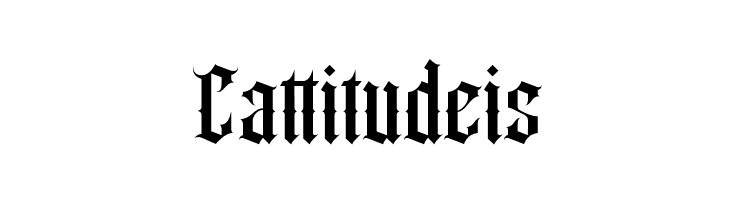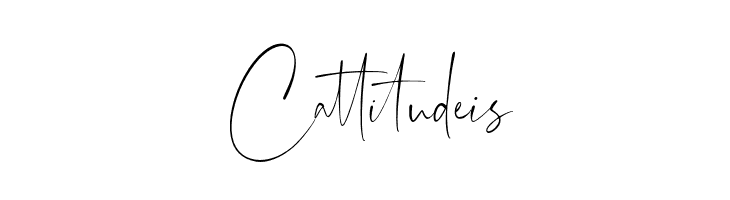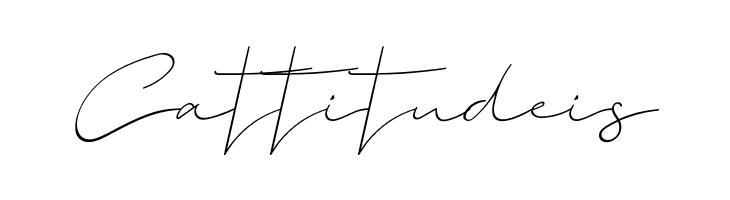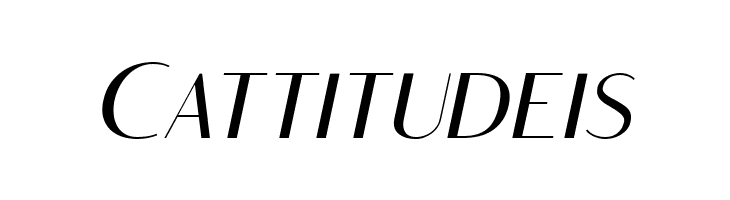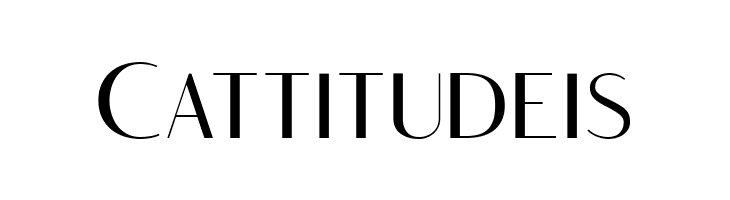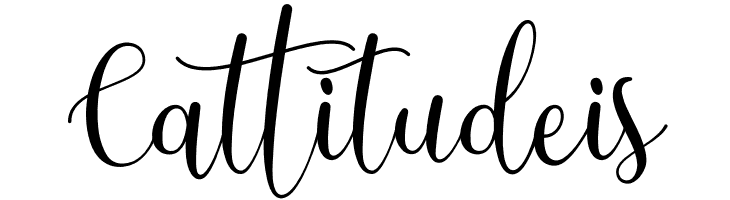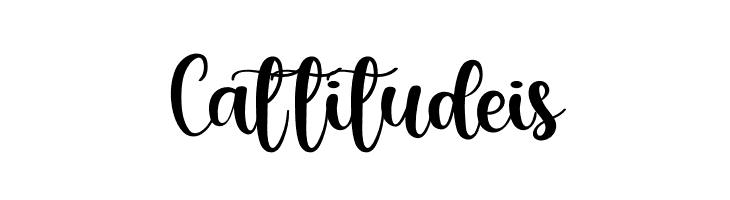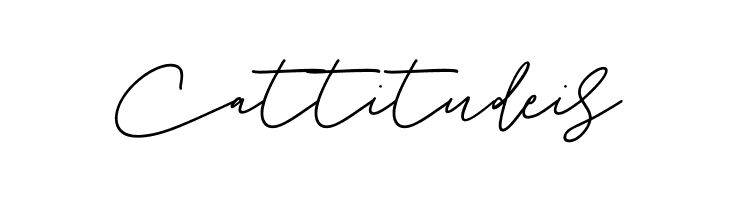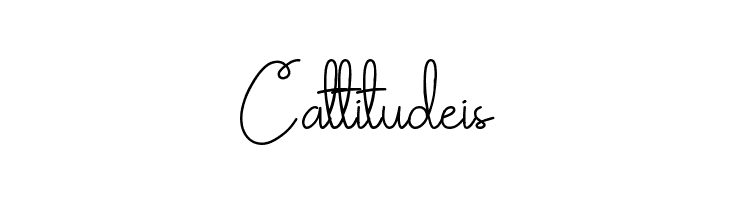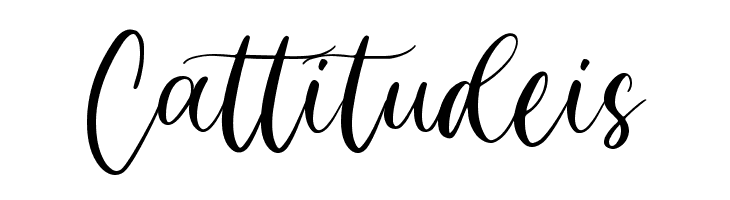
• Angel Rise Free Regular
A flowing, cursive font with an elegant, handwritten style.
• Angel Signature
A cursive, handwritten-style font with elegant, flowing characters.
• Angel Signature
A sophisticated, elegant handwritten script with flowing, interconnected letters.
• Angel Signature Italic
A graceful and fluid script font with elegant, flowing lines.
• Angel Signature Italic
An elegant, cursive script font with a handwritten signature style.
• Angel Tears Neue Personal Us Regular
An elegant and ornate script font with flowing, interconnected letterforms.
• ANGEL TEARS trial
An elegant, high-contrast script font with ornate swashes and flowing letterforms.
• ANGEL TEARS trial
• Angel Valley Demo
A fluid and elegant script font with interconnected, delicate strokes.
• Angel Wedding
An elegant script font with flowing, cursive letterforms and decorative swashes.
• Angel wish Regular
A bold, gothic blackletter font with intricate, angular designs.
• Angel wish Regular
A bold, ornate blackletter font with sharp serifs and a medieval aesthetic.
• Angela
An elegant script font with flowing, intricate loops and swashes.
• Angela Berdantte
A cursive, handwritten font with elegant, flowing strokes and dynamic contrast.
• Angela Dream
A graceful, cursive font with elegant, flowing strokes and artistic flourishes.
• Angela's Handwriting
Casual handwritten font with a friendly style.
• AngelaBerdantte
A modern, cursive font with bold, expressive strokes and elegant flourishes.
• AngelCharmsDEMO
A playful, handwritten font with smooth curves and a casual style.
• AngelDelight
A lively handwritten font with fluid, dynamic strokes and a casual appearance.
• Angeles
A lively and elegant script font with smooth curves and flowing strokes.
• ANGELES PERSONAL USE Italic